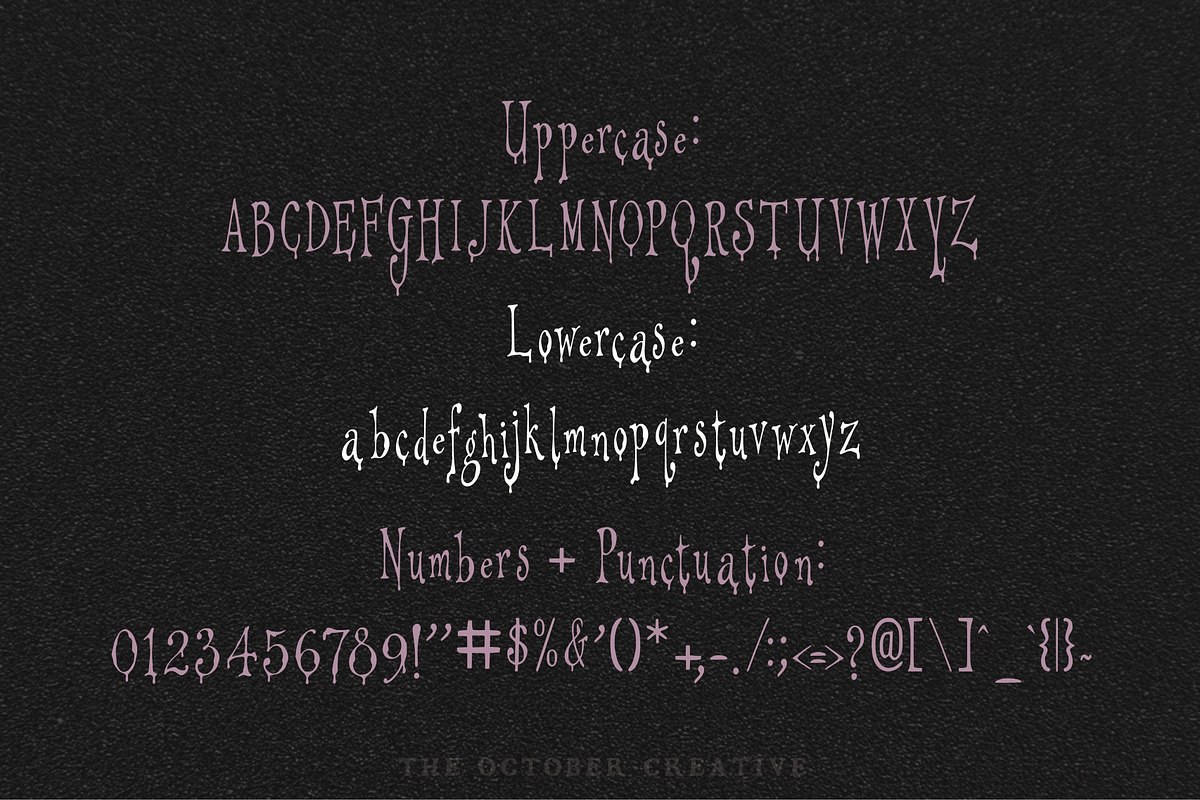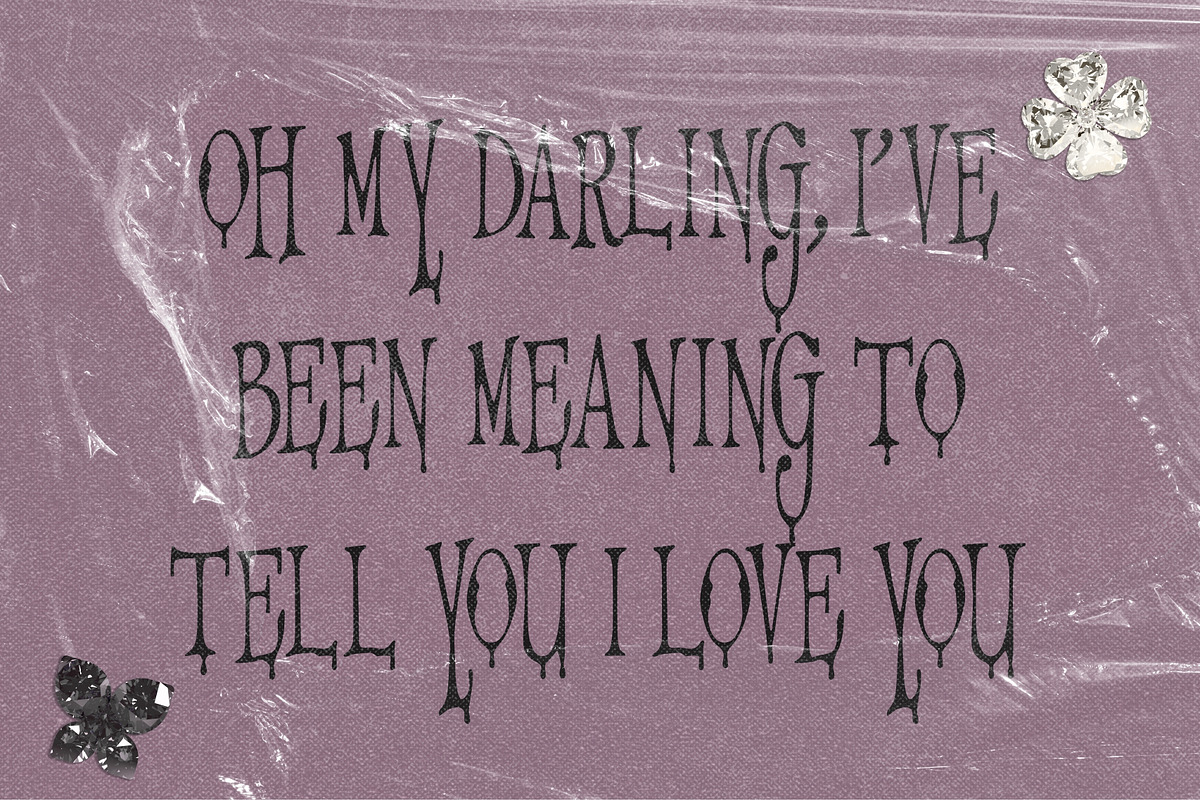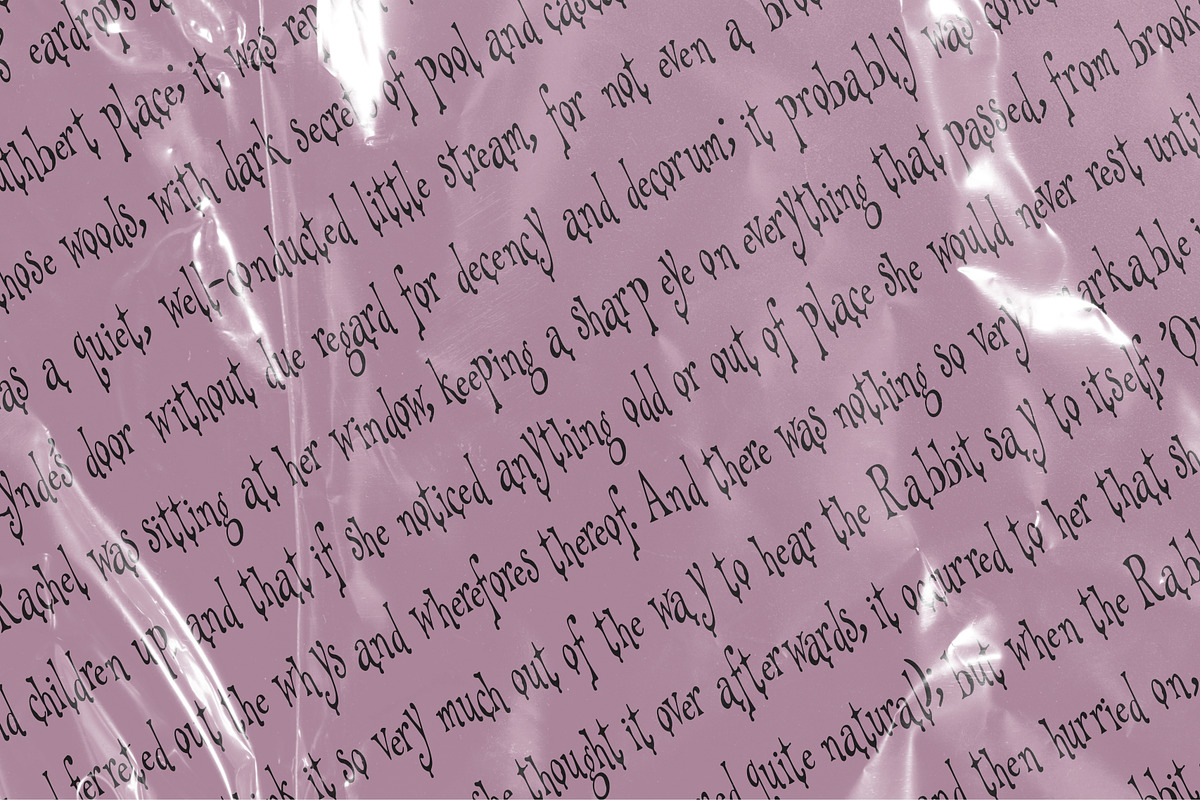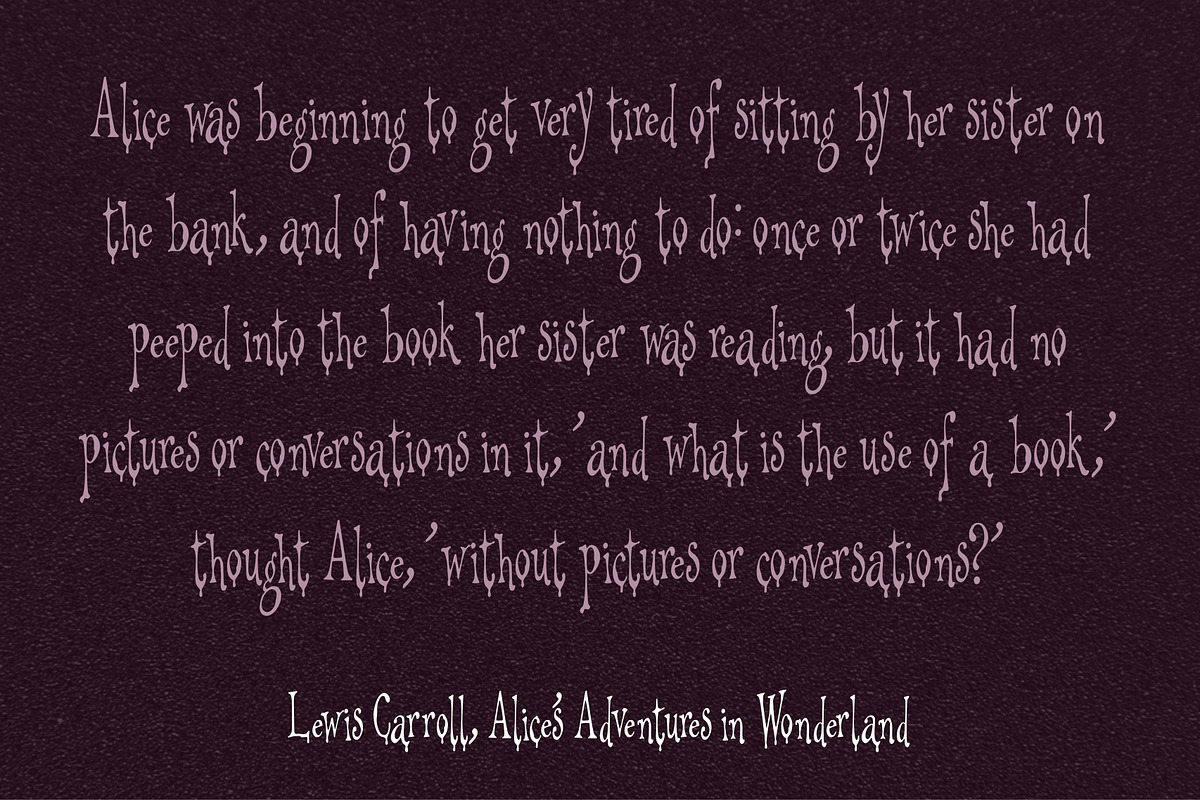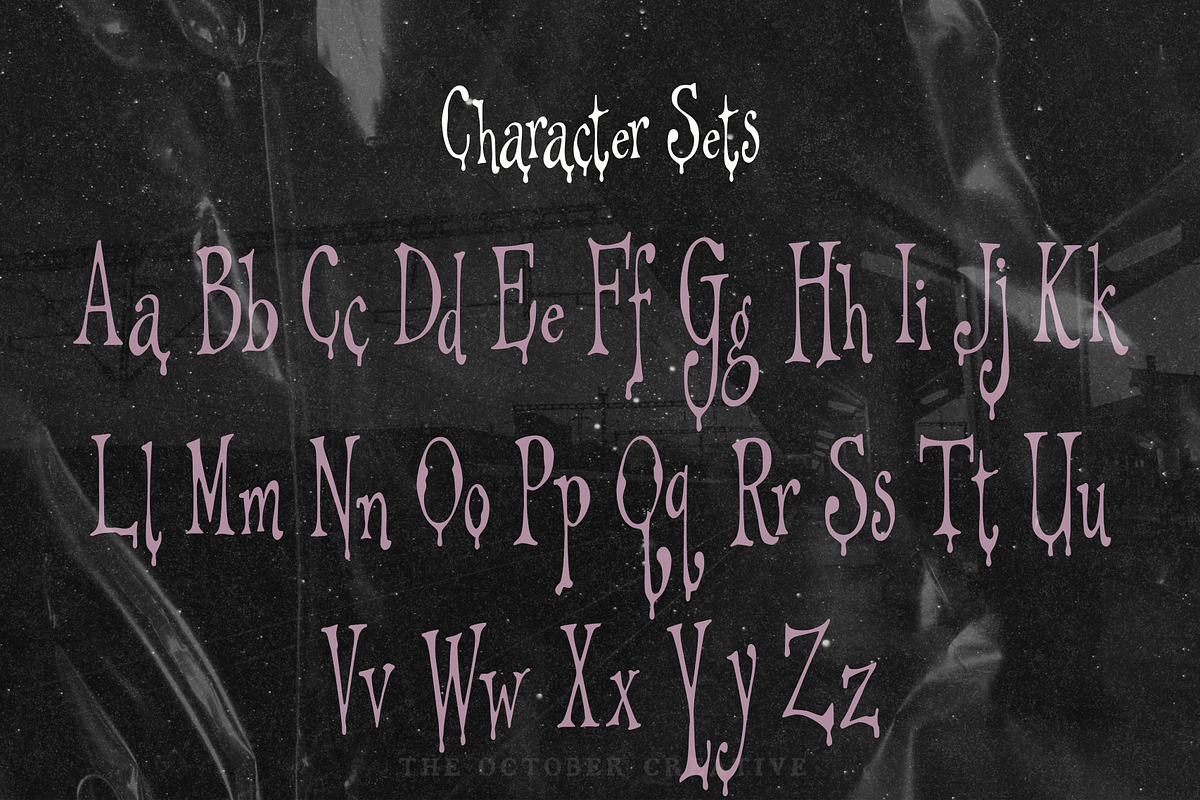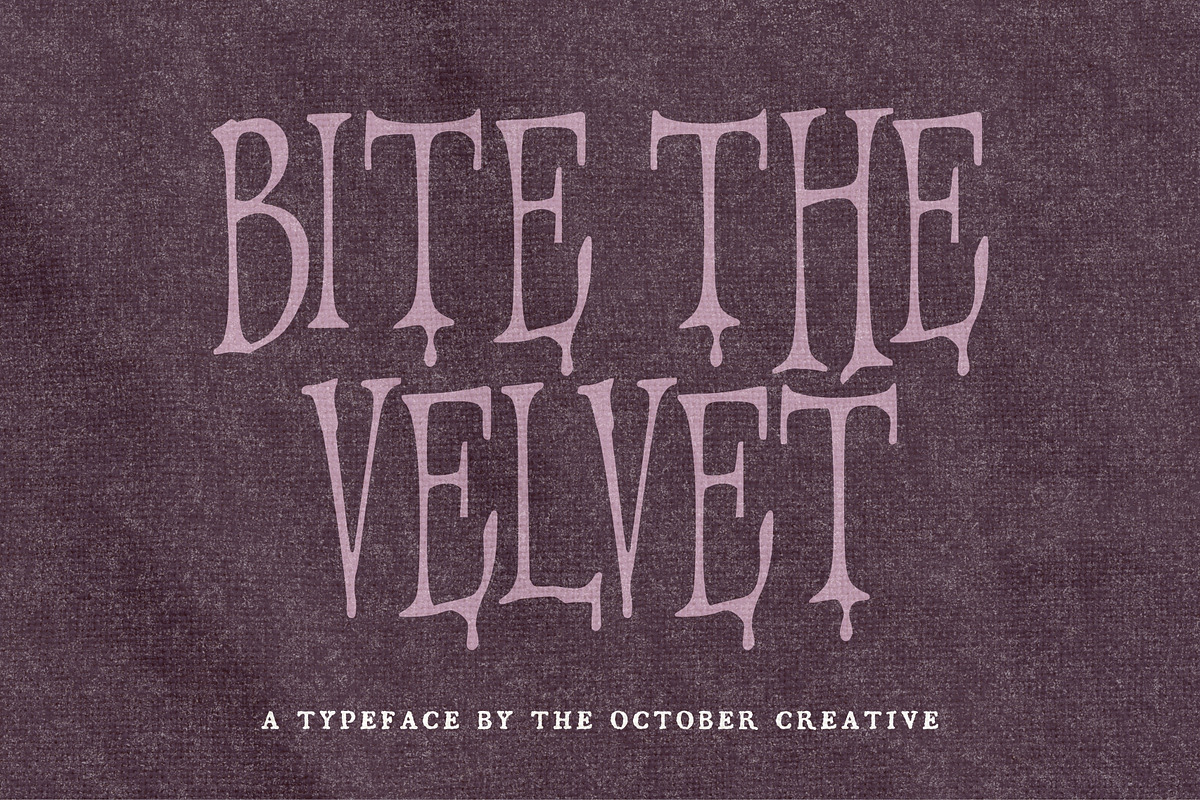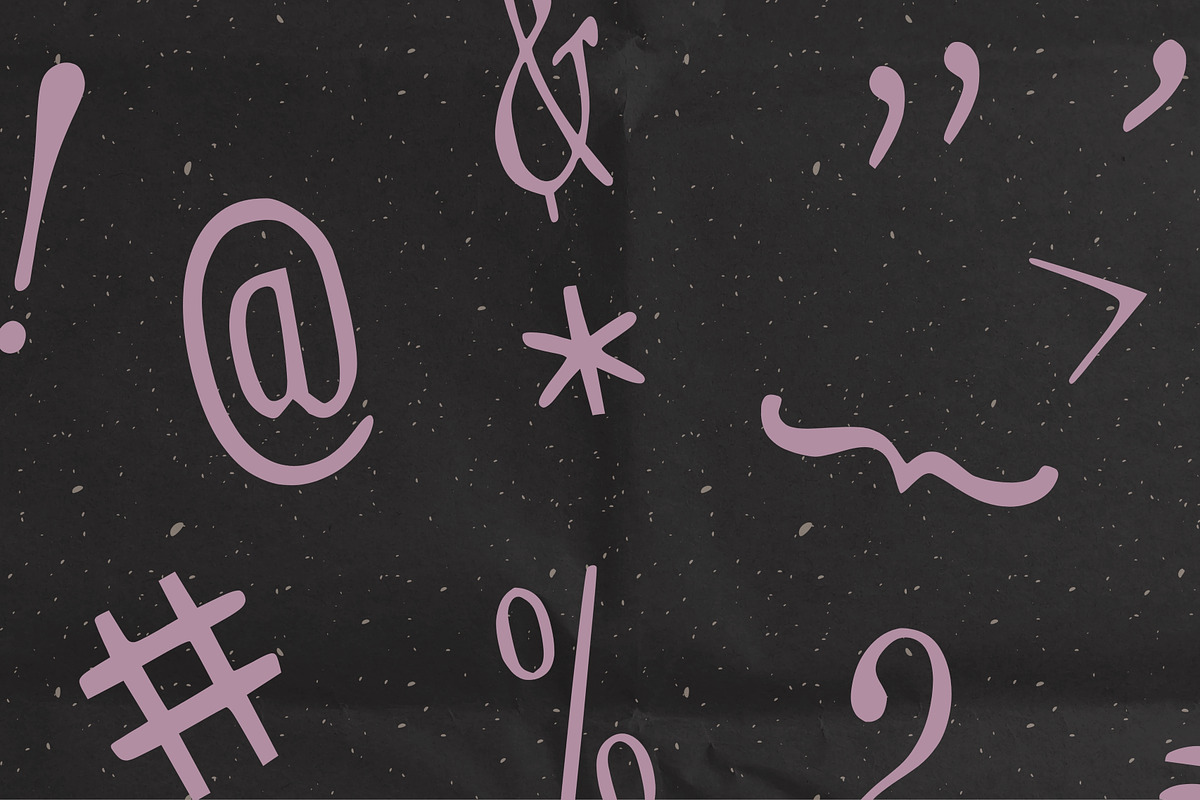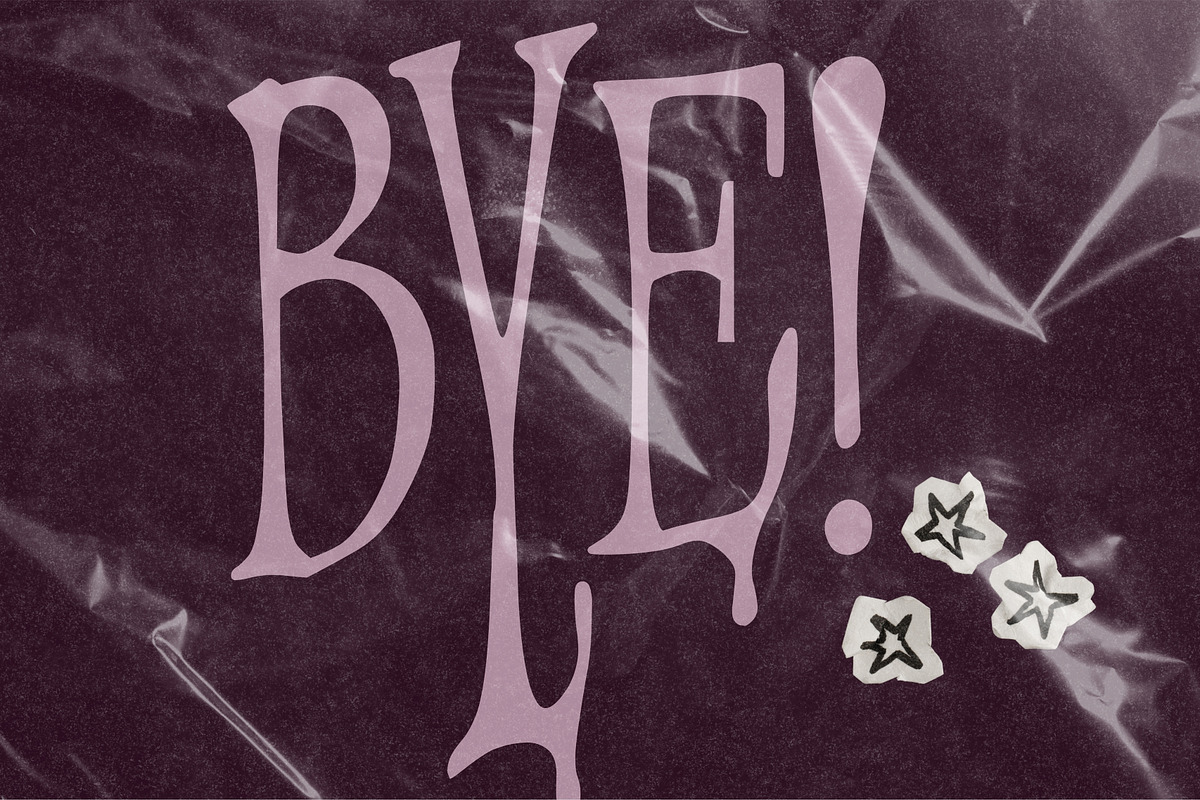
Bite the Velvet Condensed Display
Bite the Velvet is a condensed display font with sharp points and a small drip hanging off the V and the t. It fits wedding invitations, menu headers, long names that have to sit on one line, and moody event signage.
CHARACTER SET
Uppercase A to Z, lowercase a to z, numerals 0 to 9, and every standard keyboard punctuation mark and symbol: ! " # $ % & ' ( ) * + , - . / : ; < = > ? @ [ \ ] ^ _ ` { | } \~
Curly quotes and apostrophes (‘ ’ “ ”), en and em dashes, an ellipsis, and a bullet.
Accented letters: À Á Â Ã Ä Å Ç È É Ê Ë Ì Í Î Ï Ñ Ò Ó Ô Õ Ö Ù Ú Û Ü and their lowercase forms.
LANGUAGES SUPPORTED
English, plus the accented vowels, Ñ, and Ç used in names and everyday words in Spanish, French, Italian, Portuguese, German, and Dutch. Not included: ß, Æ, Ø, Œ, and the upside-down ¿ and ¡.
SPECIAL CHARACTERS